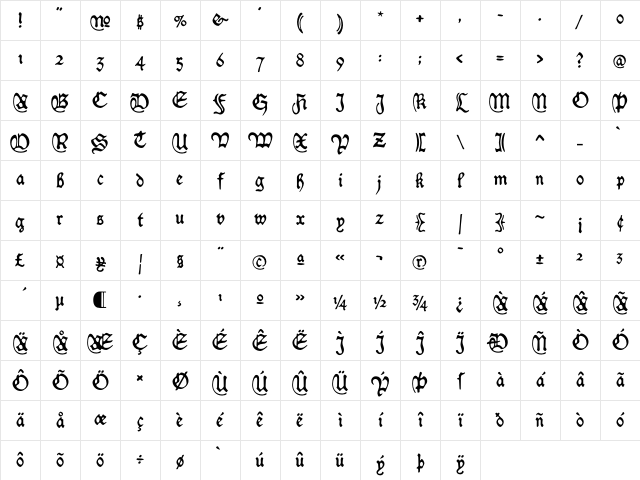
Complete Caxton Script glyph index. Displaying only characters natively supported by Caxton Script font.
Caxton flows with the natural rhythm of handwritten lettering, making it ideal for designs that call for warmth and personal expression.
Font Pairing: Combine Caxton with a simple geometric sans for maximum contrast - the tension between flowing curves and clean structure is a classic typographic pairing.
Pro Tip: Use Caxton for short runs of text - names, titles, or taglines. Extended body copy in script faces tires the eye quickly.